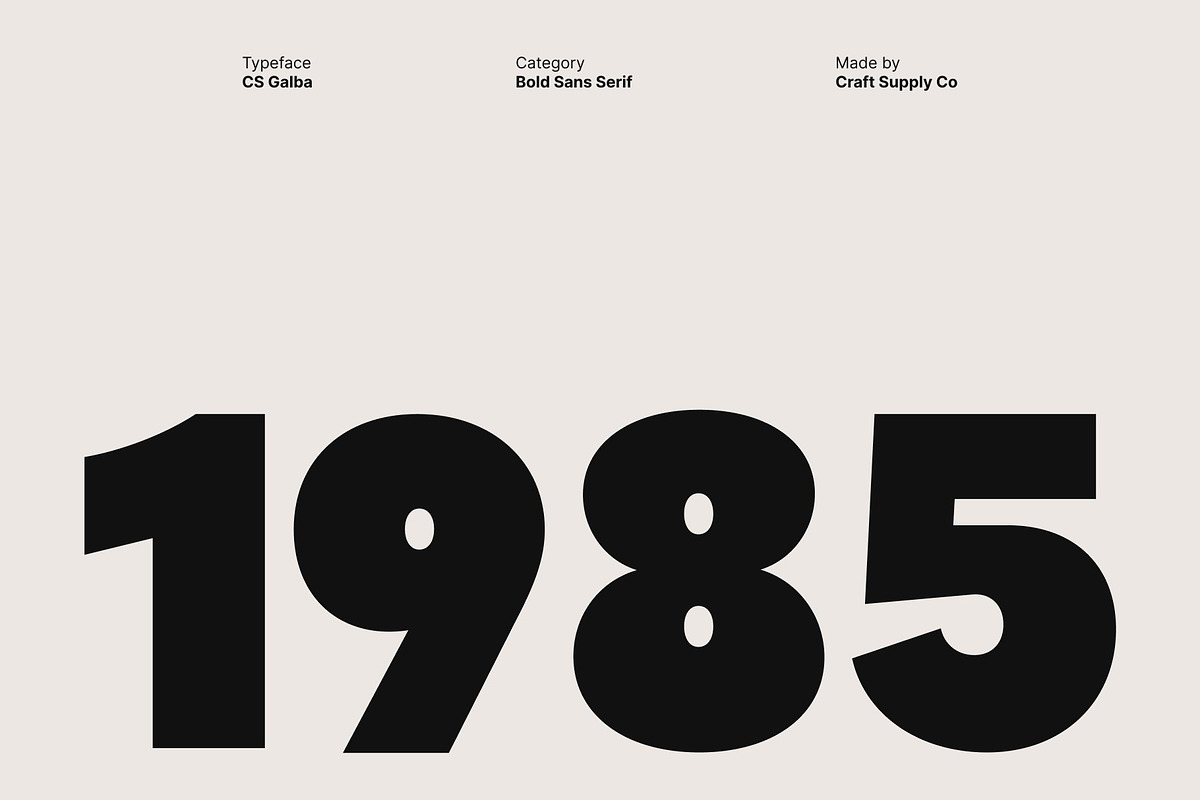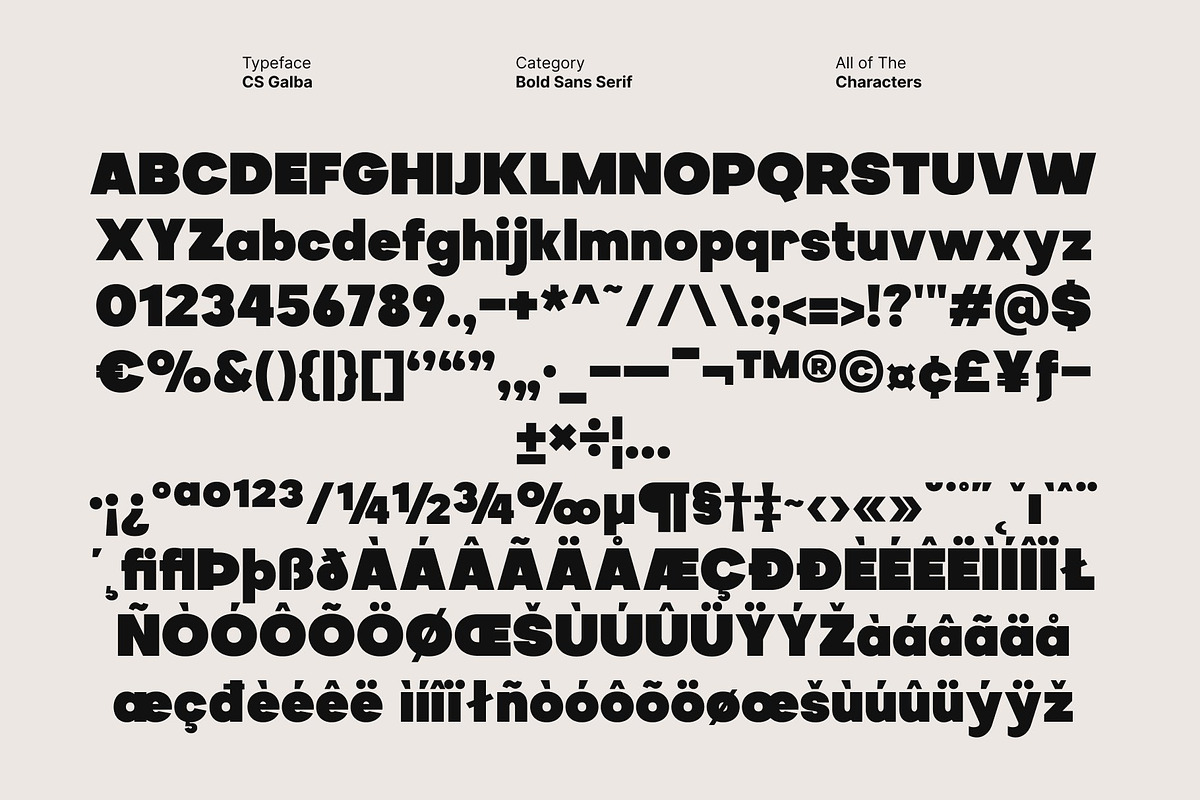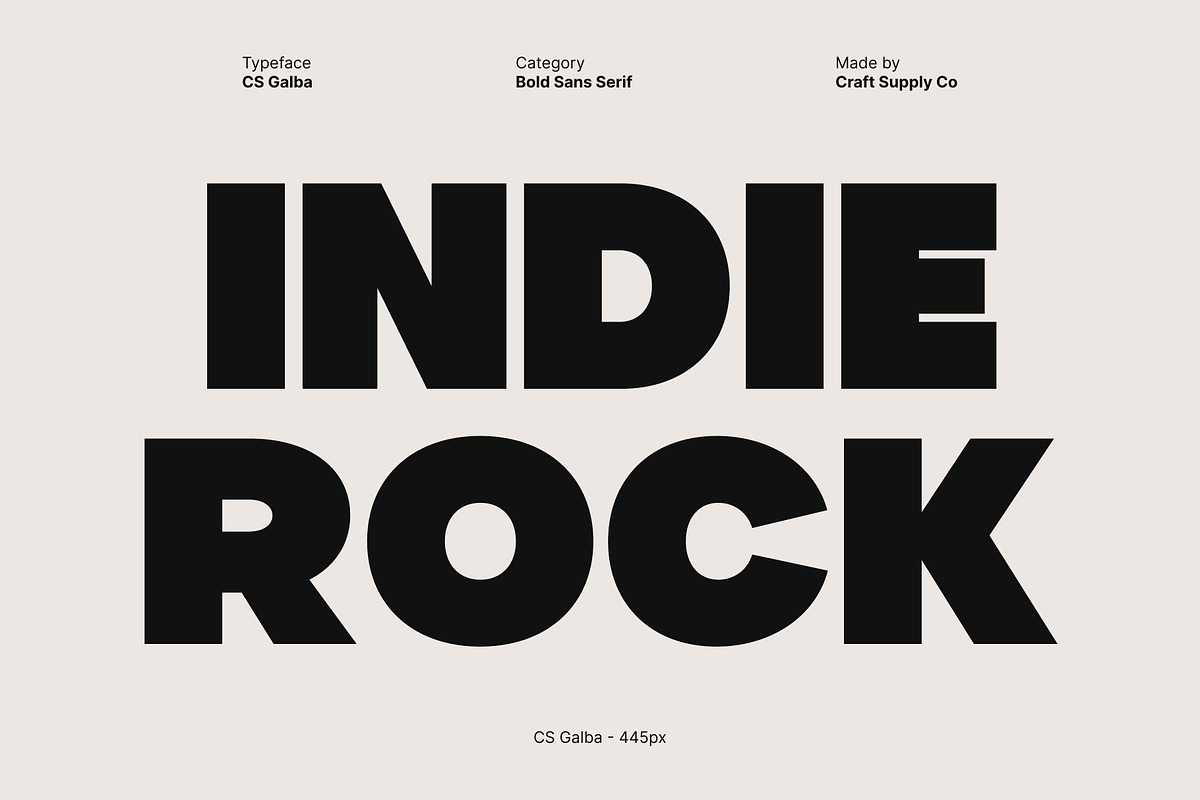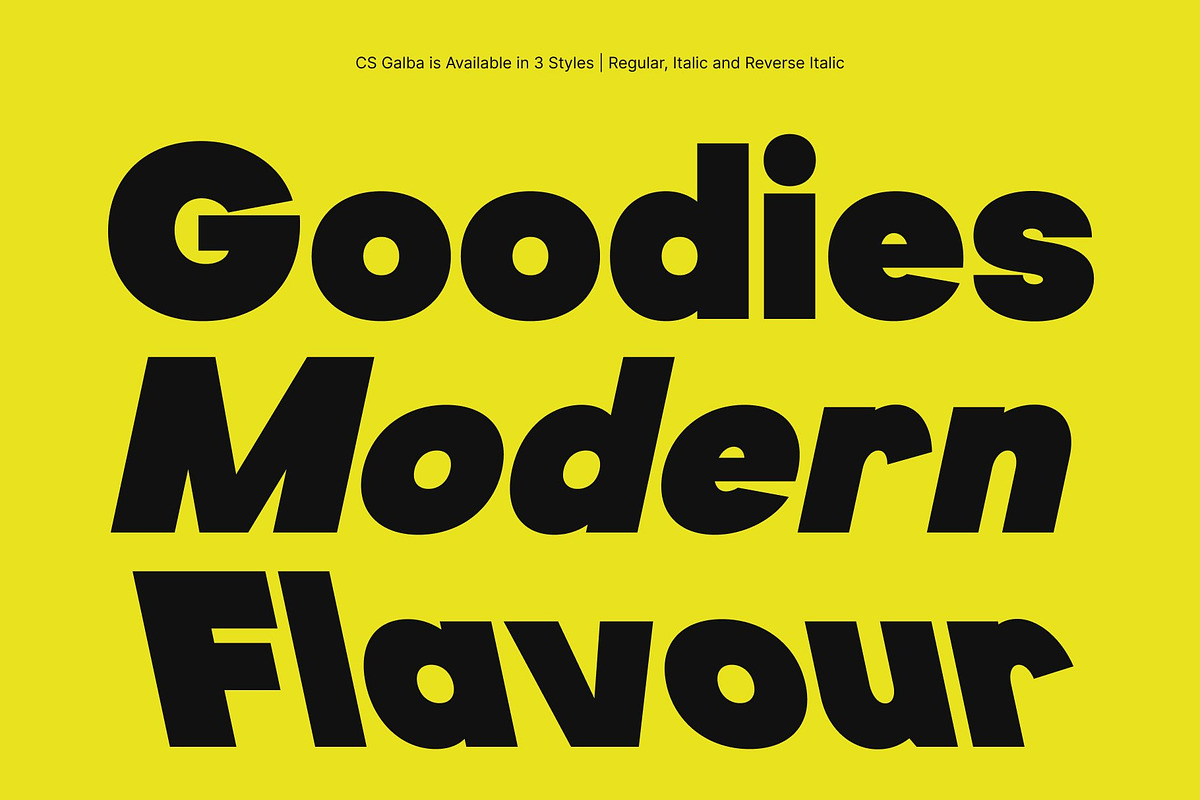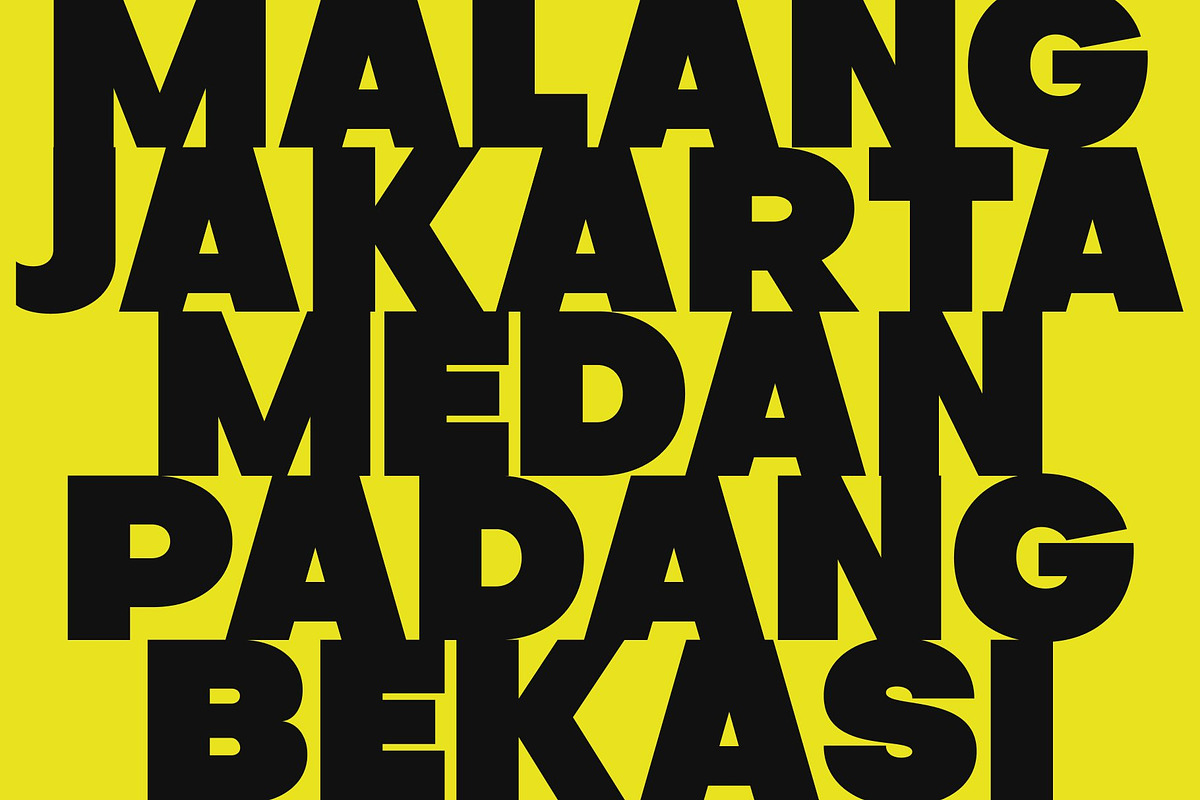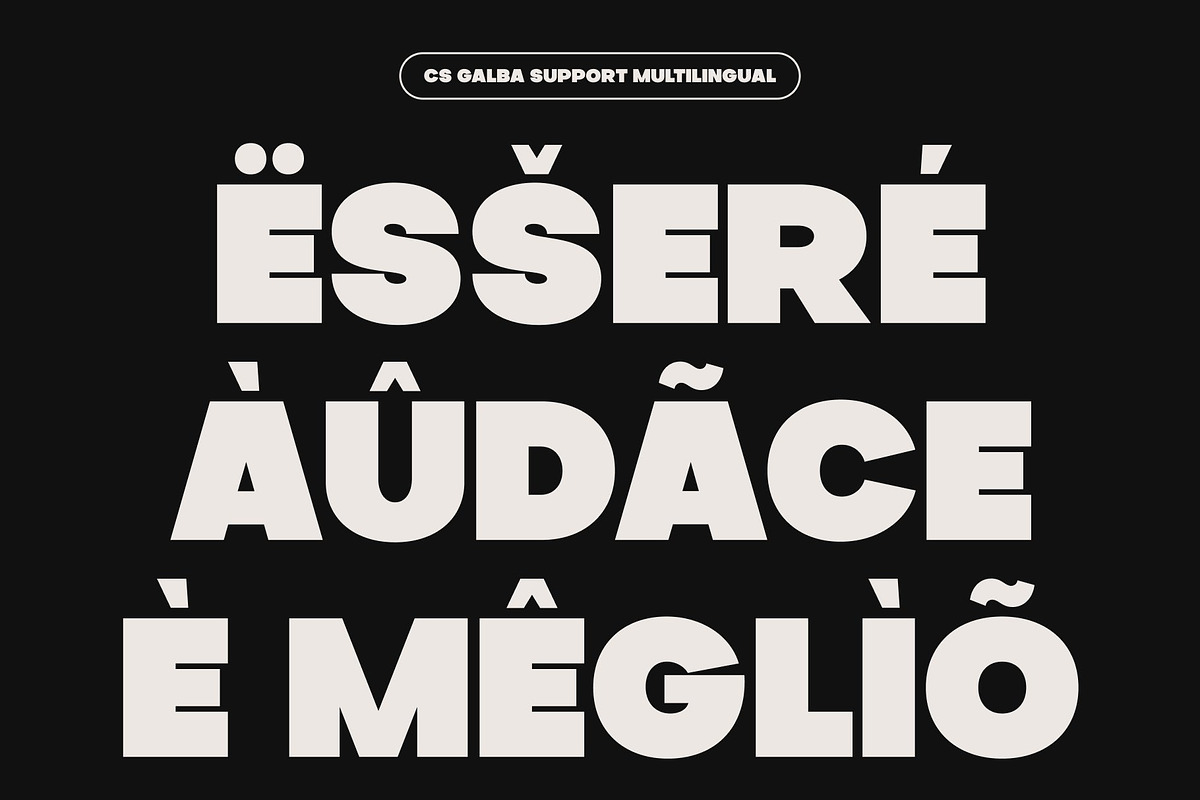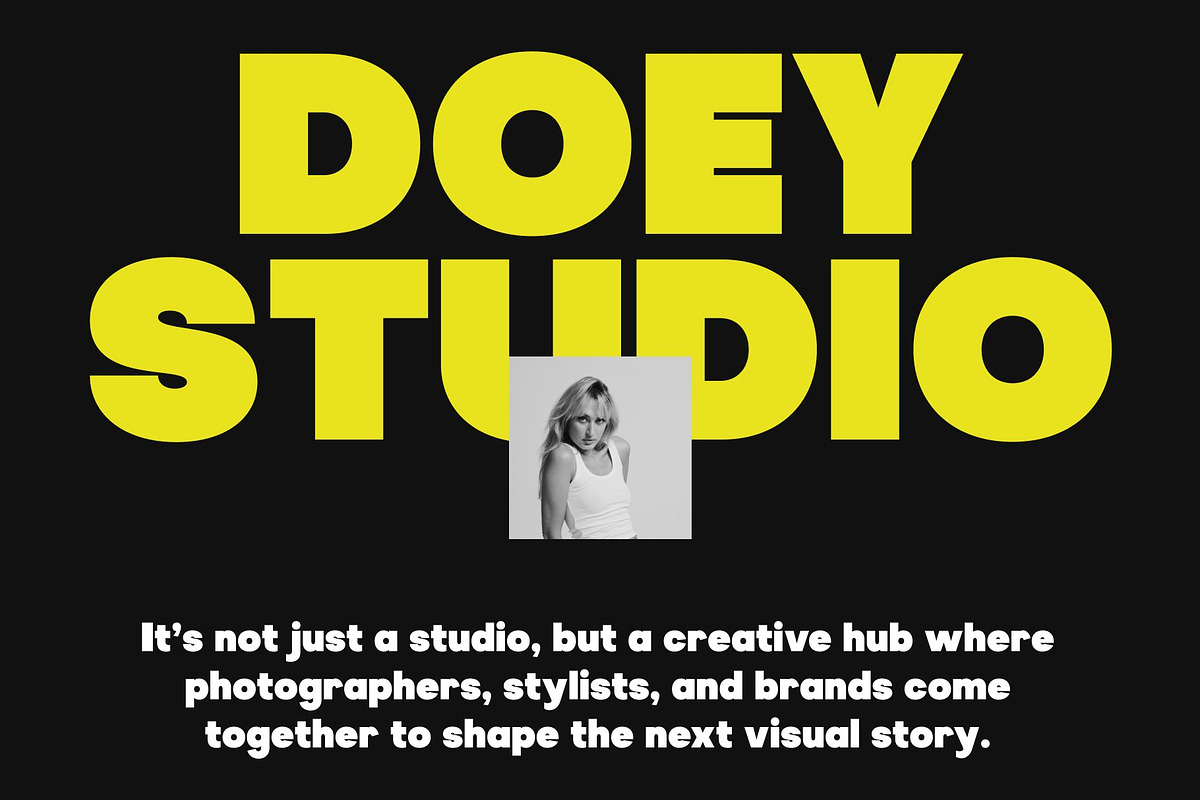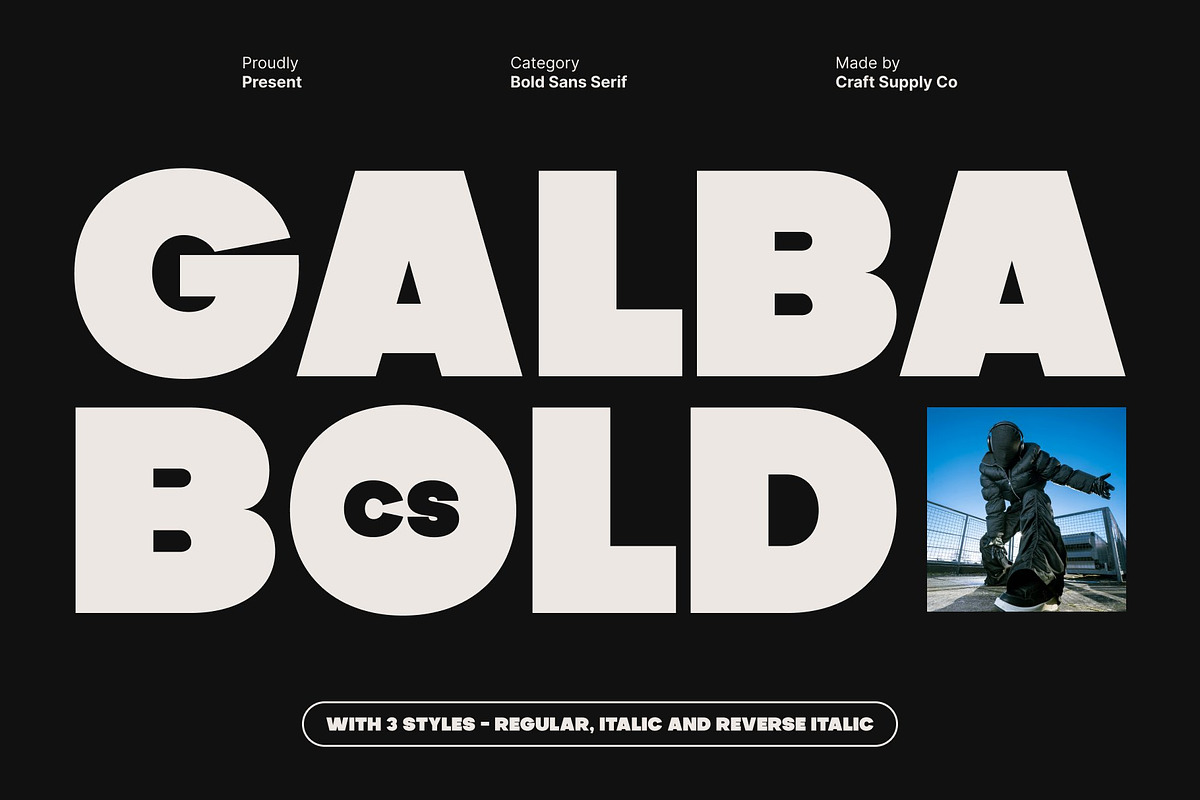
CS Galba – Bold Sans Serif
CS Galba – Bold Sans Serif with Geometric Precision: Modern Display Font with Striking Visual Impact
Bold and Expressive Design This is a bold sans serif display font crafted to capture attention instantly. Its strong, modern letterforms combine geometric precision with dynamic proportions, creating a visually striking presence that stands out in any composition. Ideal for headlines, branding, and poster designs.
Geometric Shapes for Modern Clarity The font’s sharp, geometric structure enhances readability while delivering a contemporary aesthetic. Each character is carefully balanced, giving designs a sense of order and vibrancy, perfect for projects that aim to feel both fresh and professional.
Lively and Energetic Character This font exudes modern energy and expression, making it ideal for bold displays. Its confident shapes and dynamic rhythm create a sense of movement and excitement, ensuring your text captures attention and communicates impact effectively.
Perfect for Contemporary Branding and Displays From editorial layouts and digital campaigns to posters and visual branding, this font adapts seamlessly to a wide range of creative projects. With its combination of strength, clarity, and modern flair, it provides a typeface that is both powerful and versatile, enhancing the visual appeal of every design.